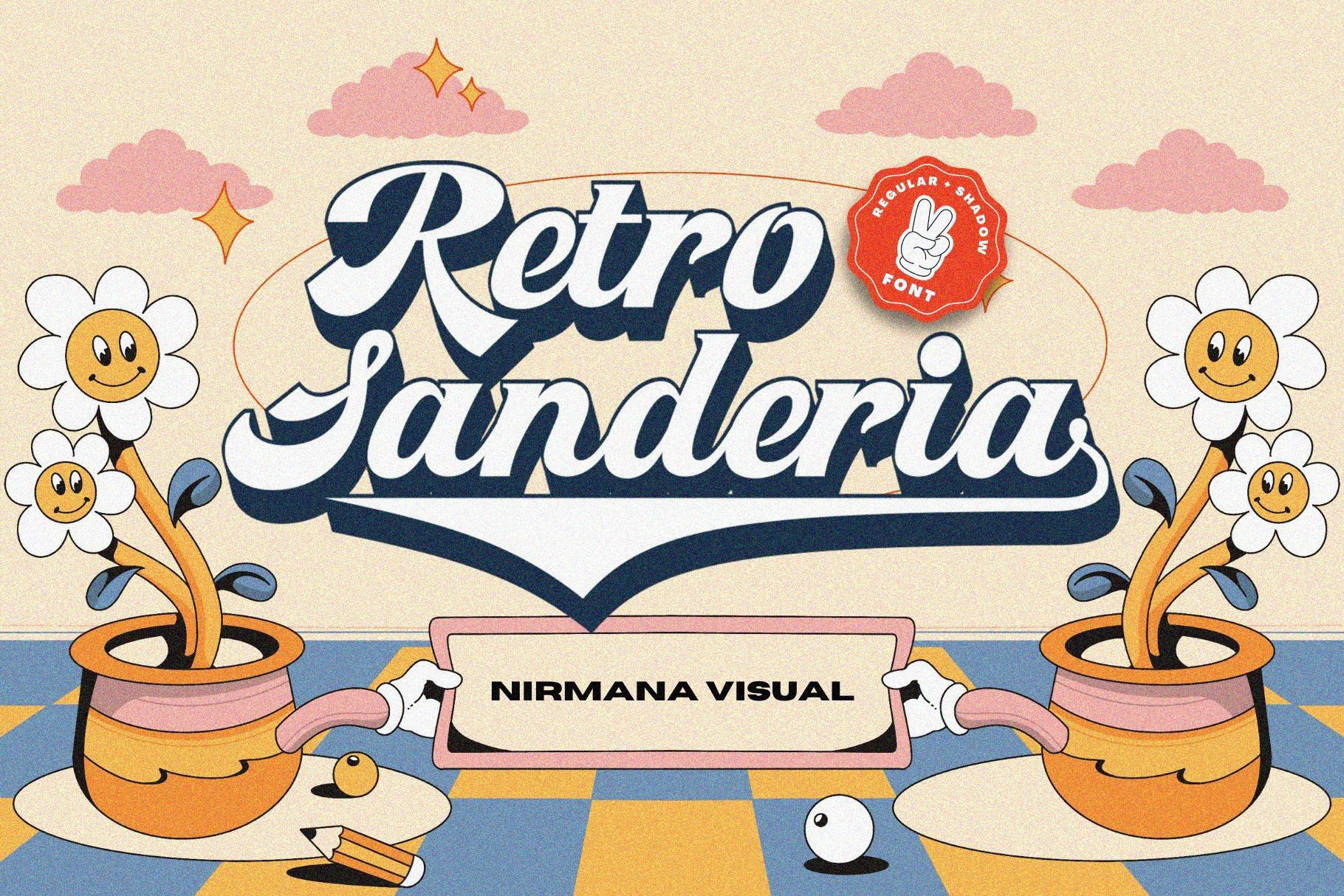
Retro Sanderia , Inspired by 70s Design Era
Retro Sanderia offers beautiful typographic harmony for a diversity of design projects, including logos & branding, social media posts, advertisements & product designs.
2 Style : Regular & shadow